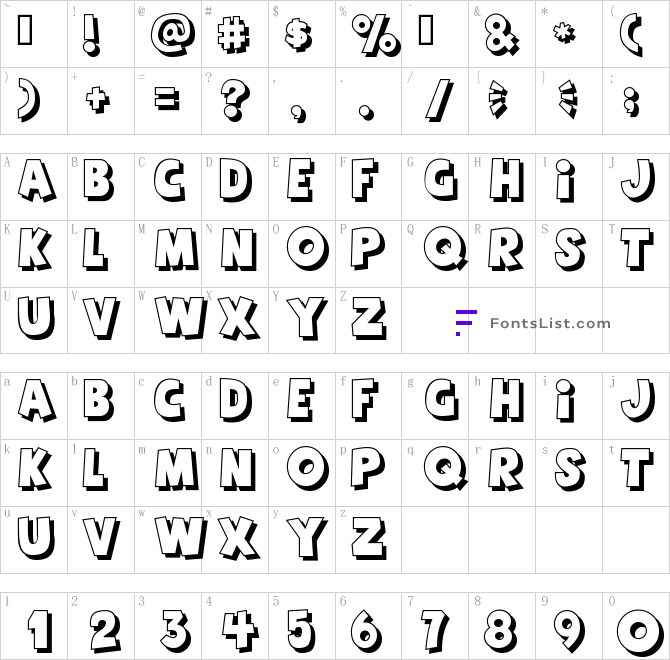
- Font Name:Agent Red
Agent-Red-copy-2-.ttf is a very beautiful artistic font, Agent-Red-copy-2-.ttf is widely used in the design and printing of various books and pictures,Agent-Red-copy-2-.ttf has a strong visual impact,Agent-Red-copy-2-.ttf is a commonly used font in newspapers, magazines and books, and is used in posters, e-commerce Poster design, store design, logo design, font design and other fields.Agent-Red-copy-2-.